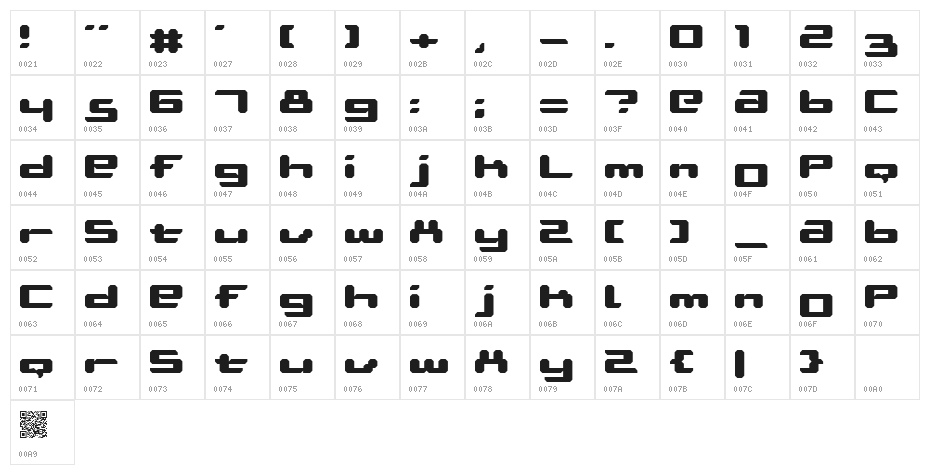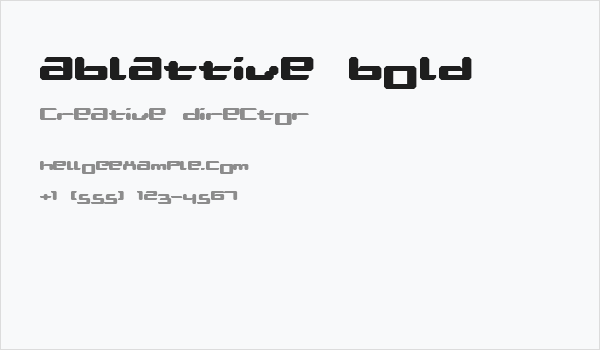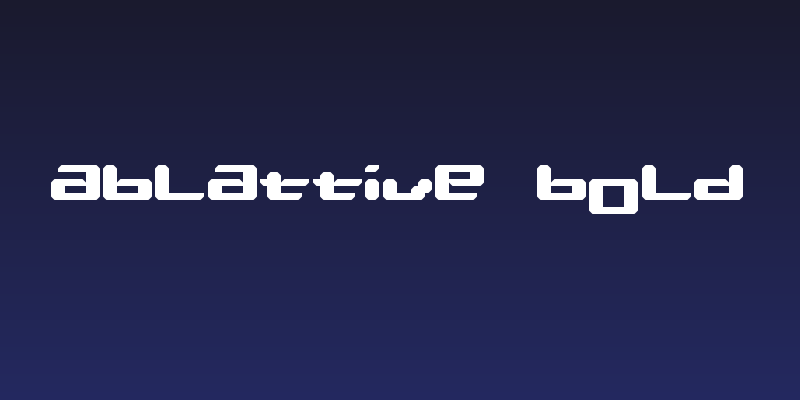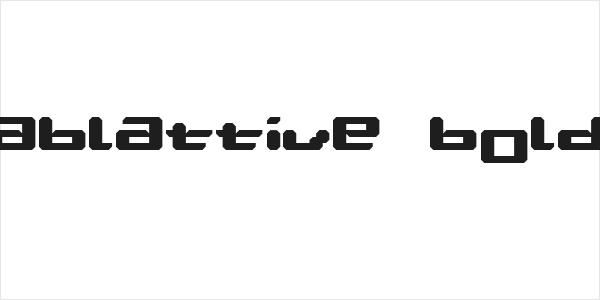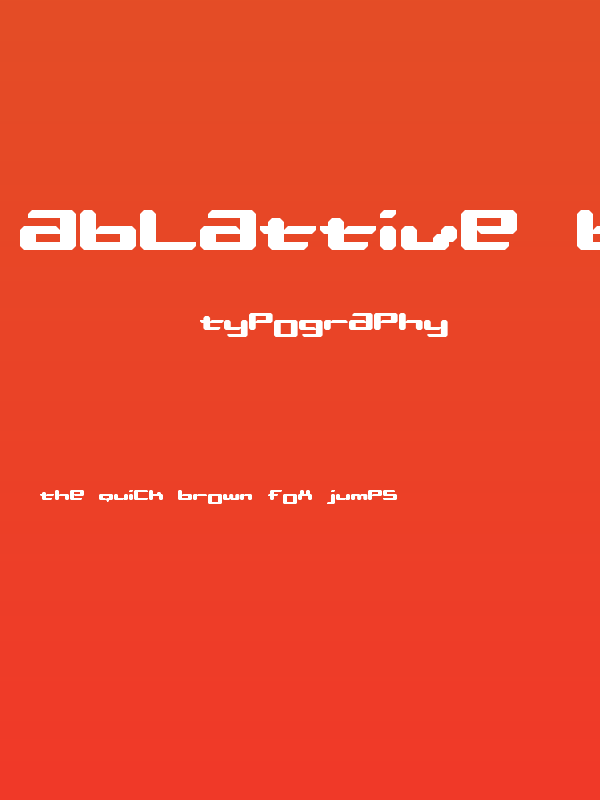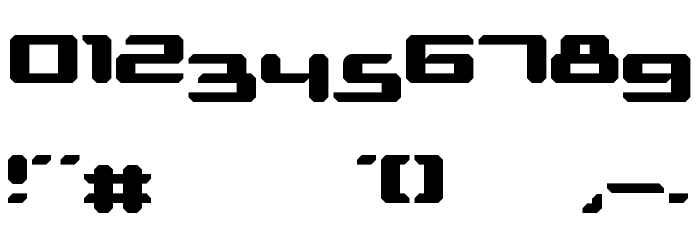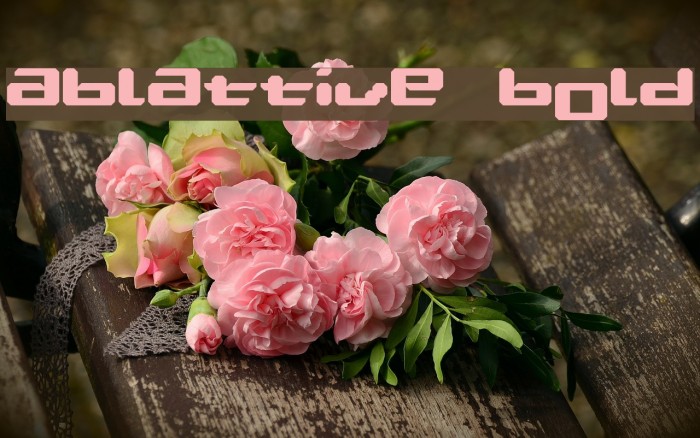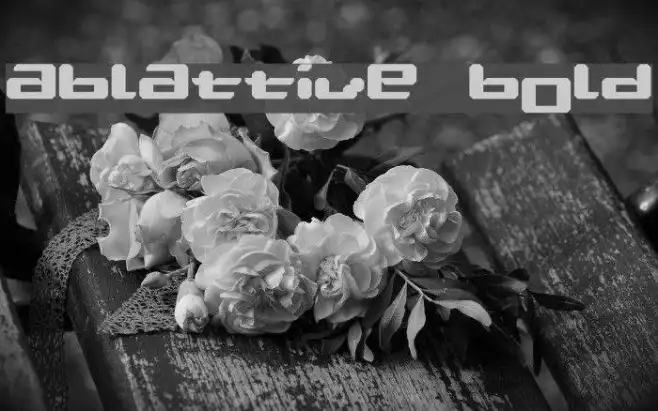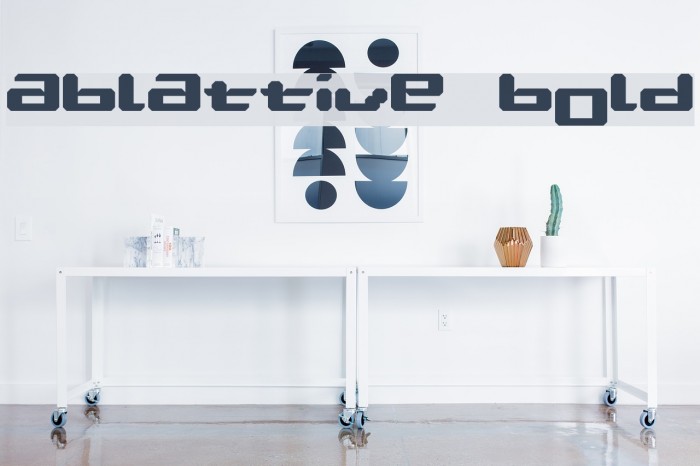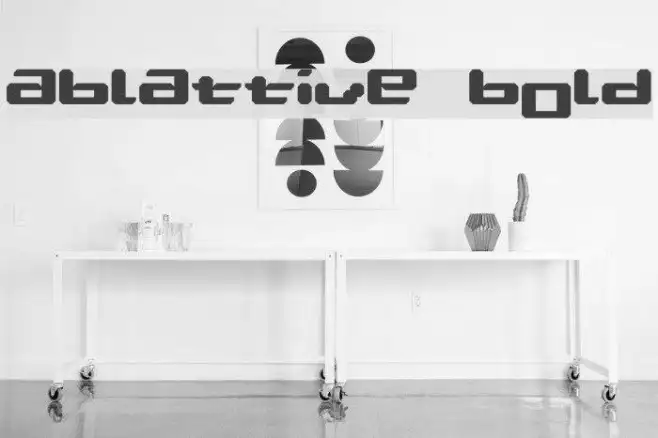
Ablattive Bold Font
Ablattive Bold Description
This font features a bold, futuristic design with a distinctly geometric structure. The characters are blocky and robust, with a consistent thickness throughout, giving it a strong and impactful appearance. The angular edges and uniform stroke widths contribute to a modern and industrial feel. The uppercase and lowercase letters maintain a uniform height, enhancing the font's cohesive look. The numerals and special characters are designed to match the boldness and geometric style of the alphabet, making it suitable for attention-grabbing headlines or digital interfaces.
| Proposed Projects | Ideal for technology branding, video game interfaces, sci-fi themed posters, and modern digital displays. |